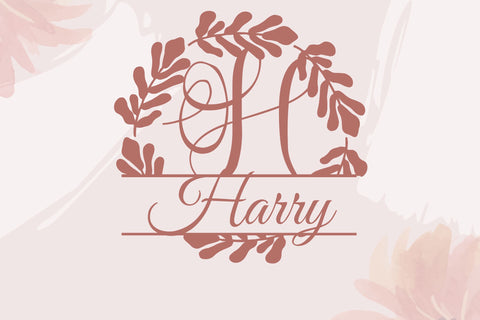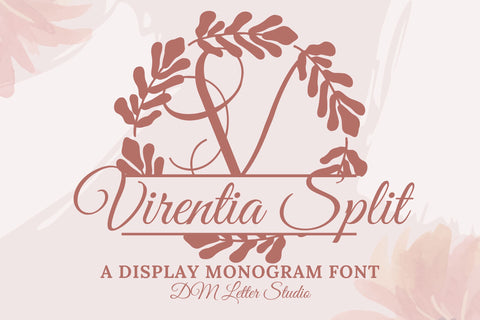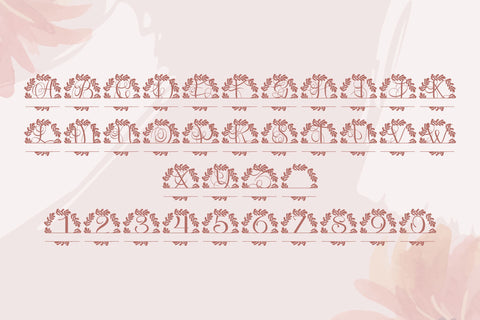
Virentia Split Monogram
Meet Virentia Split, the Split Monogram Font
Virentia Split Monogram turns simple initials into clean, botanical-inspired emblems with a clear center split for names or dates. It feels fresh, elegant, and premium without being ornate. The strokes are smooth and balanced, so letters stay readable at any size. Because counters stay open, small tags remain crisp while larger signs look sharp and refined. Use it for wedding suites, boutique logos, gift items, stationery, and luxury packaging. As a result, your designs feel personalized and polished with very little setup.
Fast layouts with the Virentia Split Monogram Font
Start with a bold split initial and center it as the main focus. After that, place a name, family title, or date across the split using a separate supporting font if needed. Because Virentia Split holds shape at small sizes, labels, stickers, tags, and cards stay clean. In addition, it works beautifully with oval frames, wreath outlines, thin dividers, and simple botanical accents, so full sets come together quickly. Finally, save palette pairs like sage & ivory, emerald & cream, champagne & charcoal, or navy & pearl to reuse across your product line.
Creative uses and quick wins
- Wedding initials with names across the split
- Boutique logo marks and brand seals
- Gift tags, stickers, and keepsake box marks
- Premium labels for candles, soap, perfume, and packaging
- Alphabet characters (A–Z)
- Numbers (0–9)
Design tips for Virentia Split Monogram Font
Keep the center text short so the initial remains the hero. Also, give the monogram enough breathing room to keep details clear at small sizes. For a premium finish, try foil stamping, embossing, or letterpress on thick stock. Finally, export at 300 DPI for print and at 2× size for web so edges stay smooth everywhere.